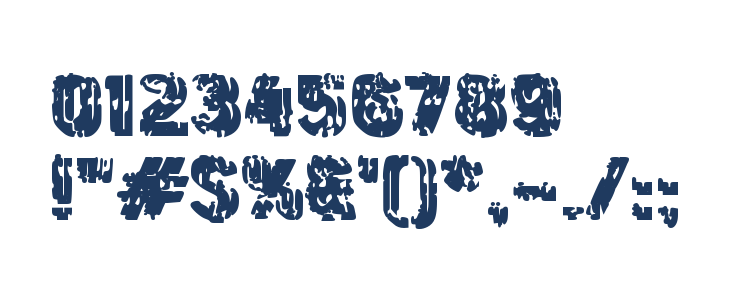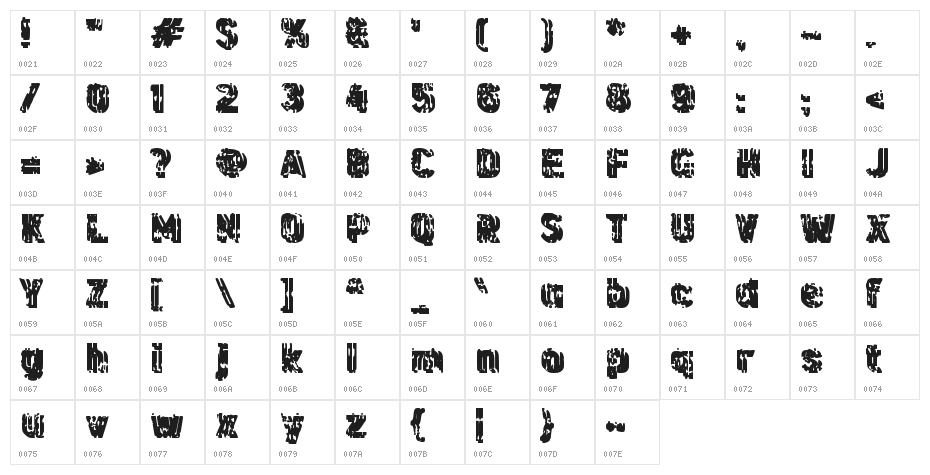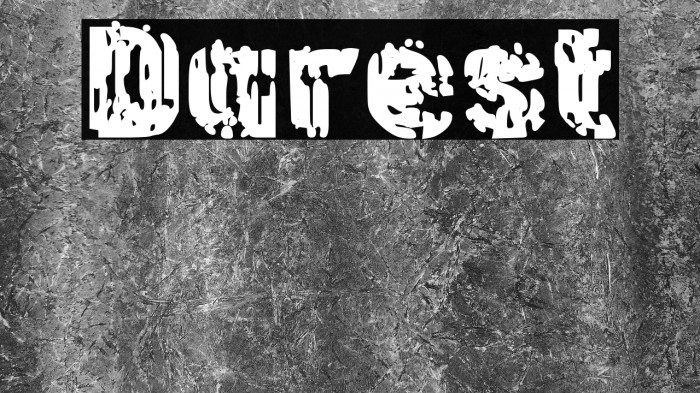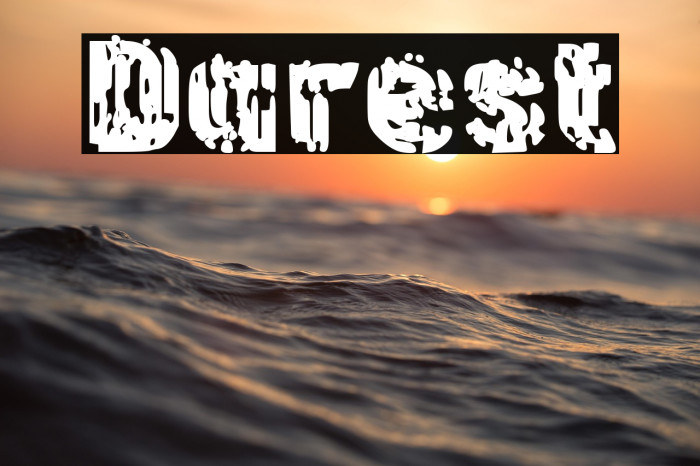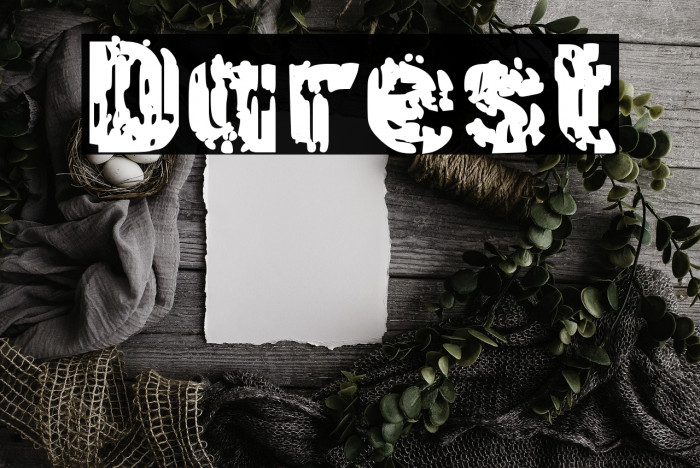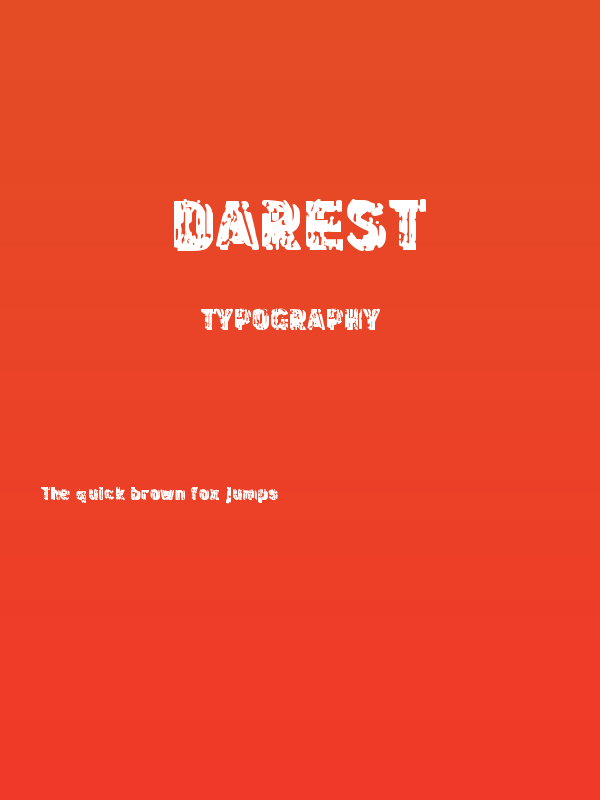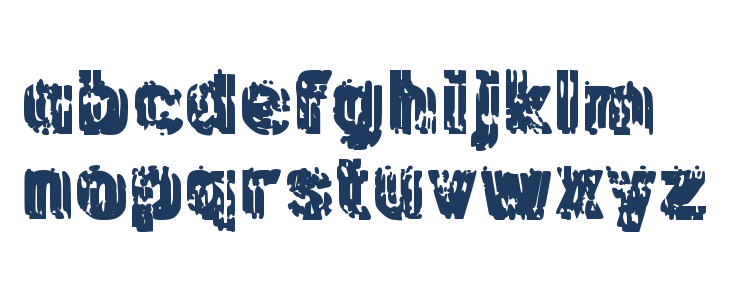
Darest Font
Darest Description
This font features a bold and distressed style, with a rugged, grunge-like appearance. Each character is heavily textured, giving the impression of erosion or decay, which adds a unique, edgy aesthetic. The uppercase and lowercase letters maintain a consistent weight, while the numbers and special characters follow the same distressed pattern. This font is ideal for projects that require a bold statement or a vintage, worn-out look. Its distinctive style makes it suitable for creative designs that aim to capture attention and convey a sense of rawness or authenticity.
| Overall Style | Grunge, Vintage |
| Proposed Projects | Ideal for posters, album covers, branding for edgy products, or any design needing a bold, distressed look. |